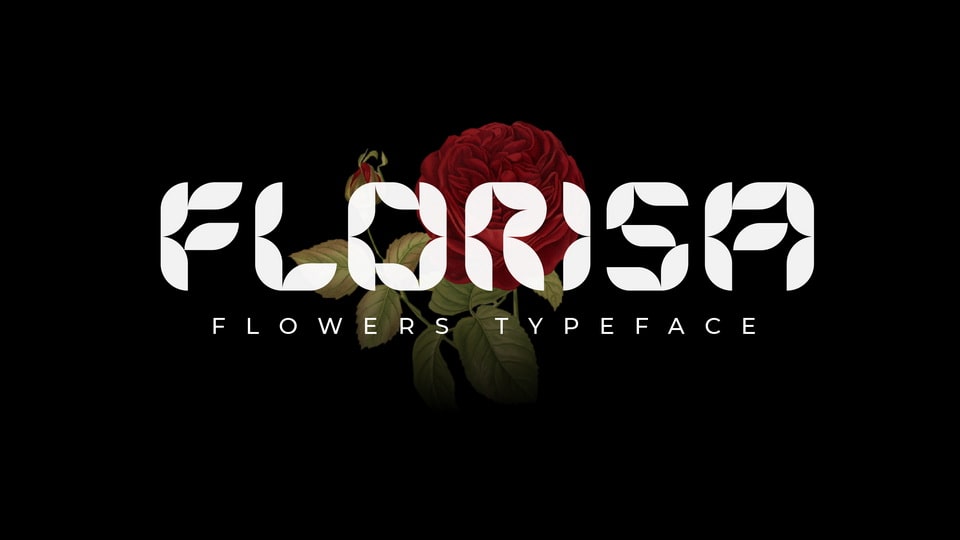
Download Florisa font, a display typeface inspired by the unique shape of flower petals, which are made into unique letters. Florisa can be used for displays, headlines, logos etc.